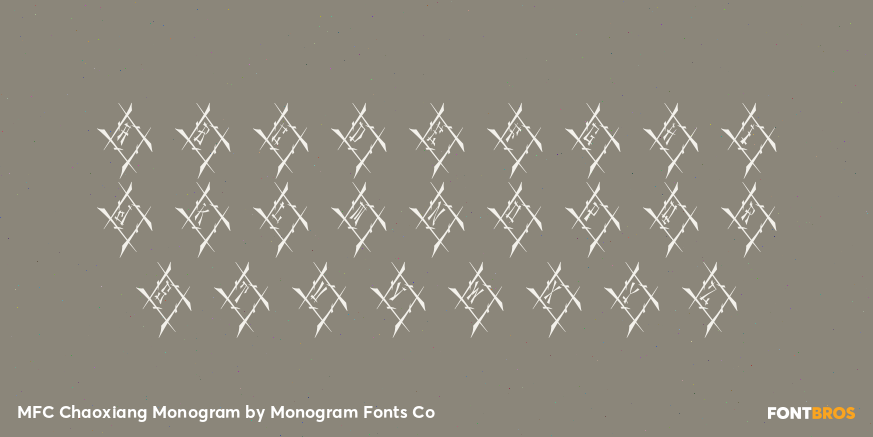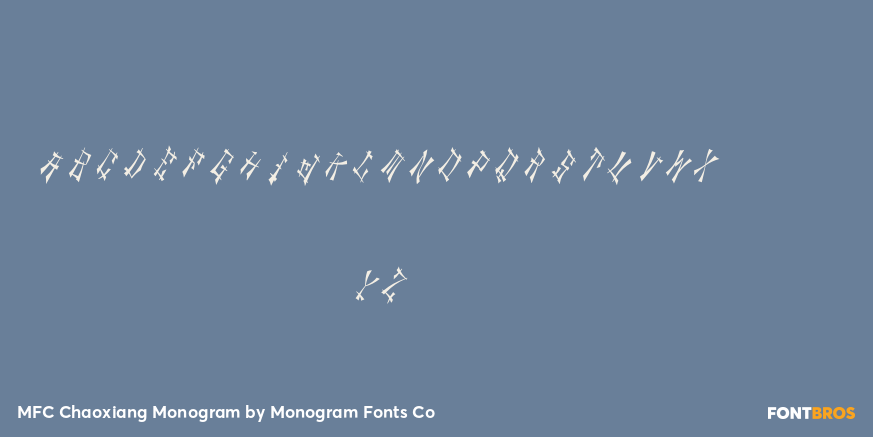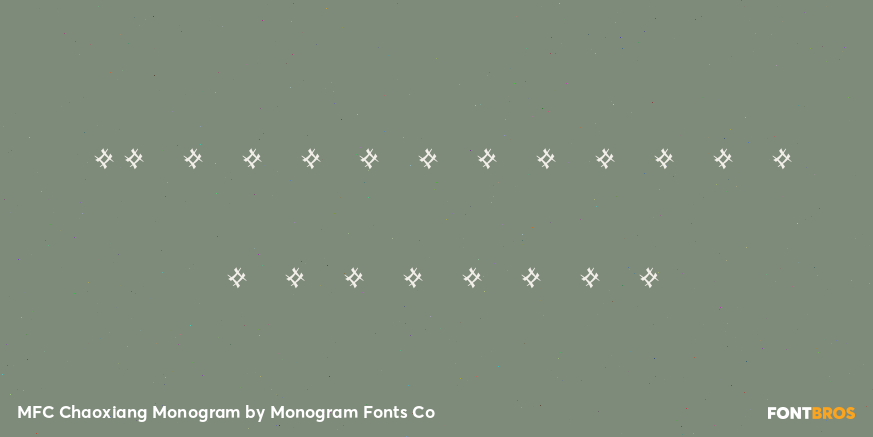
MFC Chaoxiang Monogram
Font Family by Monogram Fonts Co
The inspiration source for Chaoxiang Monogram is another hand-drawn treasure from a vintage embroidery publication which plays on the anglo-version of chinese letters with stabbing strokes and the charm of the orient. While the original intent of this monogram style is uncertain, the possibilities of its use are up to your imagination. This is one of many monogram designs from the early 1900's which fall into a two letter format bound within a framing element.